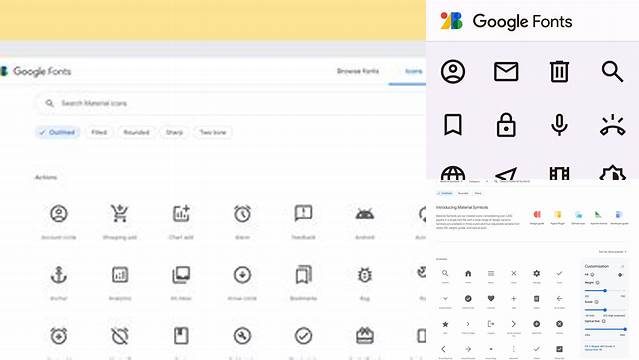
Google Fonts Material Symbols Outlined CSS Guide
Understanding the Power of Material Symbols Outlined with Google Fonts
Hey guys, let's dive deep into the world of Google Fonts and specifically focus on the incredible Material Symbols Outlined collection, and how you can seamlessly integrate them into your web projects using CSS. It’s not just about pretty icons; it’s about enhancing user experience and visual appeal with a consistent and modern design language. Google's Material Design system has revolutionized how we think about user interfaces, and its symbol library is a cornerstone of that. These outlined icons are incredibly versatile, offering a clean, minimalist aesthetic that works across a wide range of applications, from mobile apps to complex web dashboards. We're talking about a library with thousands of icons, covering everything from basic navigation elements like home and settings to more specific icons for social media, communication, and even niche industries. The beauty of using Google Fonts for these symbols is the ease of implementation and the assurance of high quality and performance. You don't need to worry about image file formats, different resolutions, or complex sprite management. It's all handled through simple CSS. We'll explore how to access them, how to style them, and best practices for using them effectively to make your designs pop.
Harnessing the family=Material+Symbols+Outlined
CSS Parameter
Alright, so one of the key ways to bring these awesome Material Symbols Outlined into your project is through the specific CSS parameter: family=Material+Symbols+Outlined
. This little gem tells Google Fonts exactly which font family you want to load. It’s super straightforward but incredibly powerful. When you’re linking Google Fonts in your HTML, you’ll typically see a URL like https://fonts.googleapis.com/css2?family=Material+Symbols+Outlined
. This part is crucial. It’s the gateway to accessing the entire outlined symbol set. Think of it as a direct request to Google's servers for a specific set of glyphs designed to be clean, scalable, and easily customizable. The +
signs are simply URL encoding for spaces, ensuring the request is properly formatted. This parameter is what enables the font to be rendered as icons directly within your text content. Instead of embedding image files, you’re using character codes. This means smaller page sizes, faster loading times, and infinitely scalable icons that look sharp on any screen resolution, from a tiny smartwatch to a massive 4K display. We’ll be breaking down the exact syntax and showing you practical examples of how to use this in your stylesheets.
Seamless Integration of Material Symbols Outlined via Google Fonts CSS
Integrating Material Symbols Outlined into your website using Google Fonts CSS is all about making things easy and efficient. The process is designed to be incredibly user-friendly, even for folks who might be new to web development. You don't need to be a CSS wizard to get these sharp, modern icons showing up in your design. The core of the integration lies in a simple <link>
tag in your HTML’s <head>
section or an @import
rule in your CSS file. This link points directly to the Google Fonts API, specifically requesting the Material Symbols Outlined
family. Once that link is established, you can start using the icons just like you would any other font character. You assign the Material Symbols Outlined
font-family to an element and then use specific characters or names to display the desired icon. This method is a game-changer compared to traditional methods like SVG sprites or raster images. It means faster load times, smaller file sizes, and infinite scalability without any loss of quality. Plus, you get all the benefits of font rendering, like text shadows and color changes directly through CSS. This section will walk you through the exact steps, showing you how to find the right icon, how to add the font to your project, and how to style it, ensuring your design looks slick and professional.
Exploring the Vast Iconography of Material Symbols Outlined
The Material Symbols Outlined collection is seriously massive, guys. We’re talking about a huge library of icons that are designed to cover almost any scenario you can think of in web and app design. When you start exploring, you’ll find everything from the basics – think home, user, settings, search – to more nuanced icons representing actions like delete, edit, save, or even abstract concepts like loading or visibility. The beauty of this collection is its consistency. All the icons adhere to the Material Design principles, meaning they share a common visual language. This consistency is crucial for creating a user interface that feels intuitive and cohesive. Whether you’re designing a simple blog or a complex enterprise application, you’ll be able to find the perfect icon to communicate an idea or action quickly and effectively. The outlined style itself is particularly popular because it offers a lighter, more modern feel compared to filled icons. It’s less visually dominant, allowing your content to take center stage while the icons provide clear visual cues. We'll touch upon how to navigate the Google Fonts website to discover these icons and understand the different weights and variations available, ensuring you pick the perfect visual element for your needs.
The CSS font-variation-settings
for Material Symbols Outlined Customization
Now, this is where things get really cool, guys. For Material Symbols Outlined, you can go beyond just basic font loading and actually fine-tune the appearance using CSS font-variation-settings
. This is a powerful feature that comes with variable fonts, and Google's Material Symbols are offered as such. What does this mean for you? It means you can control things like the weight (how thick or thin the lines are) and fill (whether the icon is outlined or solid) directly within your CSS. For example, you can use font-variation-settings: 'wght' 300;
to make the outlined lines thinner, or 'wght' 700;
to make them bolder. You can even control the opsz
(optical size) to adjust the overall size and detail level. This level of control is fantastic because it allows you to make the icons perfectly match the typography and visual style of your specific design without needing multiple icon files. It’s dynamic, it’s efficient, and it gives you granular control over the look and feel. We'll explore the specific axes available for Material Symbols Outlined and how to apply them in your CSS to achieve exactly the look you're going for, making your icons truly bespoke.
Accessibility Considerations for Outlined Material Symbols
Hey guys, let's not forget about accessibility when we're talking about Material Symbols Outlined. These icons are fantastic for visual communication, but we need to make sure everyone can understand their meaning. If an icon is purely decorative and its meaning is clear from surrounding text (like a magnifying glass next to a search bar), then it might not need extra attention. However, if an icon conveys important information on its own – think of a trash can icon representing